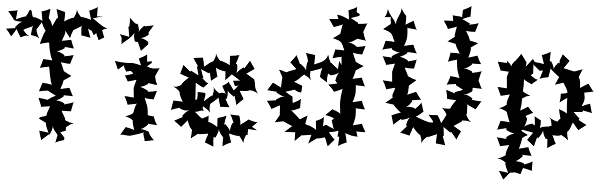
TiedUp
TiedUp is a distortion of my font named Ingone. I no longer remember which font distortion program or procedure I used to get this cut-up or ragged effect.
TiedUp Font